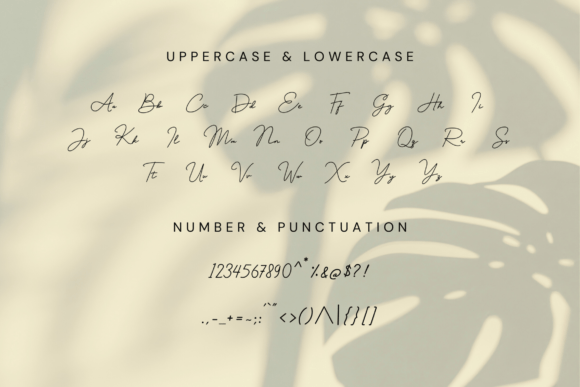
Introduction to Singakur Font
Have you ever been working on a creative project and felt like something was missing? A spark of personality that would make it truly stand out from the crowd? That’s where the Singakur Font comes in – a delightful handwritten font that adds a playful twist to any design.
Whether you’re designing eye-catching headlines, vibrant posters, or playful branding projects, the Singakur Font is the perfect addition to bring your creations to life. With its whimsical letterforms and unique charm, this font is sure to capture attention and leave a lasting impression.
Key Features of Singakur Font
- High-quality, elegant script font suitable for creative projects and designs.
- Unique, hand-drawn design with intricate details and flourishes, perfect for adding a touch of sophistication to designs.
- Can be used for a wide range of creative projects, from wedding invitations to branding and marketing materials.
Honest Review: Singakur Font
As a designer, I’m always on the lookout for high-quality design resources to elevate my creative projects. The Singakur Font caught my attention with its sleek and modern aesthetic. After giving it a spin, here’s my honest review.
What works well: ✨ The font is incredibly versatile, with a range of weights and styles that make it perfect for everything from logos to body text. The free download option is also a major plus, making it an accessible design resource for designers on a budget. The font also features a transparent background, which is a huge bonus for designers who need to achieve a clean and minimalist look.
- ✨ High-quality design that’s perfect for logos, body text, and other creative projects.
Limitations: ⚠️ While the font is generally high-quality, I did notice that it can be a bit finicky when it comes to smaller text sizes. Additionally, the font’s bold weights can feel a bit too bold at times, which may require some tweaking to achieve the desired look.
Overall, I’m impressed with the Singakur Font and would definitely recommend it to designers looking for a modern and versatile font. With a bit of tweaking, it’s sure to become a go-to design resource for your creative projects.
Tips for Getting the Most Out of Singakur Font
To get the most out of the Singakur Font, use it with a transparent background to create a clean and modern design. Experiment with different font sizes, colors, and styles to add visual interest to your project. You can also use the font in combination with other design resources, such as images and graphics, to create a high-quality design.
The Singakur Font is ideal for creative projects, such as:
- Social media graphics and advertisements
- Blog posts and articles